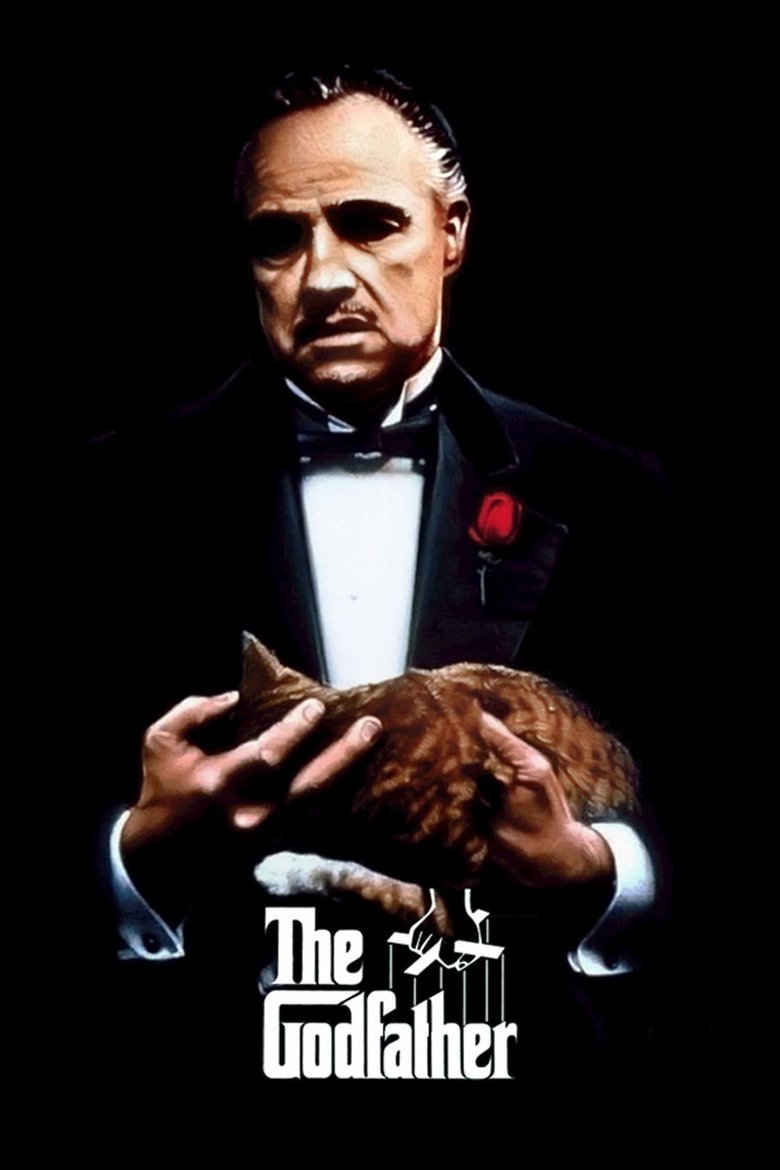
The Godfather Font Generator
About the The Godfather font
The Godfather's iconic title is a fine, formal serif. Cinzel recreates that classic, old-world weight for free.
What font is used in the The Godfather logo?+
The original The Godfather logo uses custom lettering. This generator recreates the look with Cinzel — a free, open-license font you can style and download.